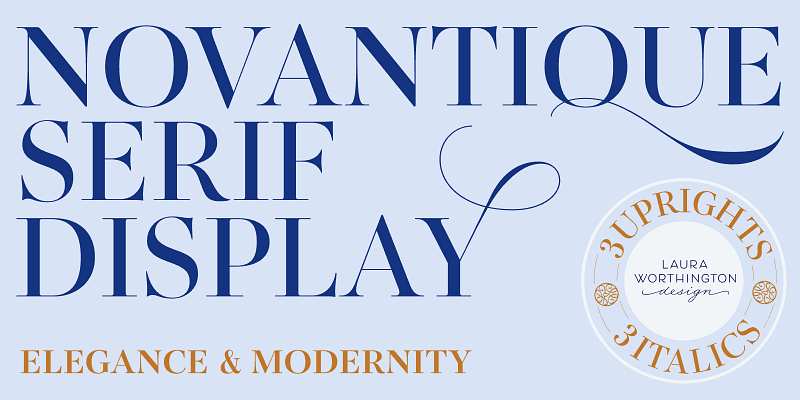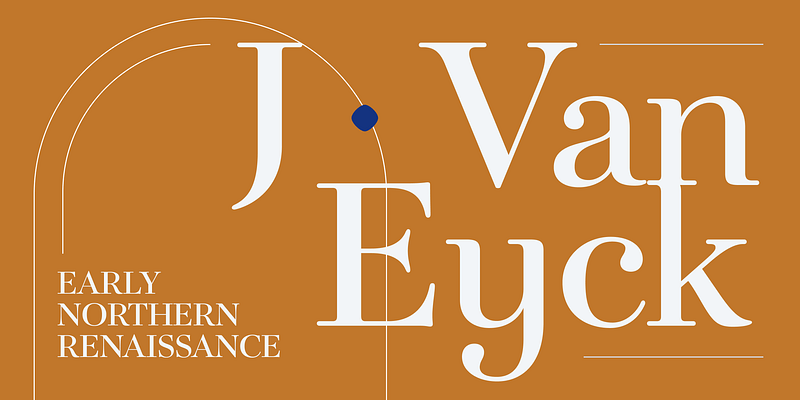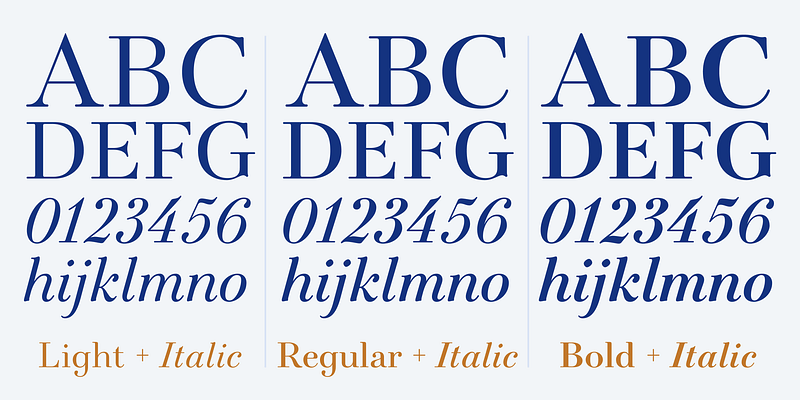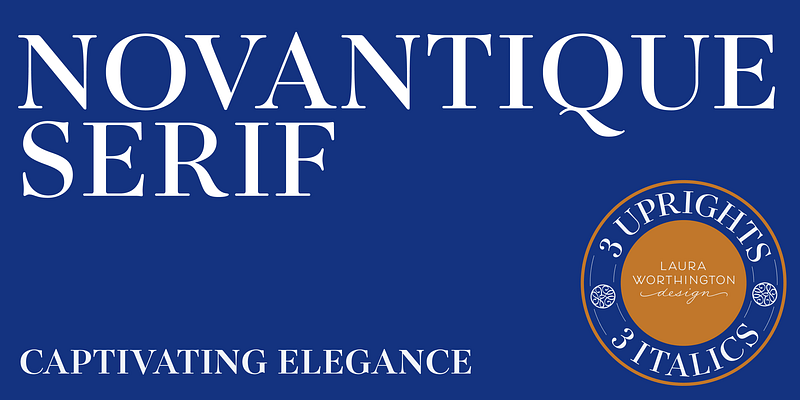
Laura Worthington Design is where you will discover a beautiful range of exquisite typefaces hand-drawn with artistic flair and meticulous craftsmanship. Laura’s faces are primarily based on her hand-lettering and calligraphy, reflecting her own distinctive approach to design and attention to detail. Playful and casual or elegant and sophisticated, the incredibly versatile fonts of award-winning designer Laura Worthington are perfect for adding a little pomp and circumstance to any project.